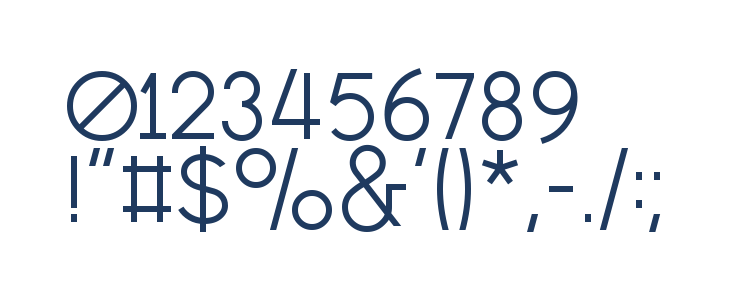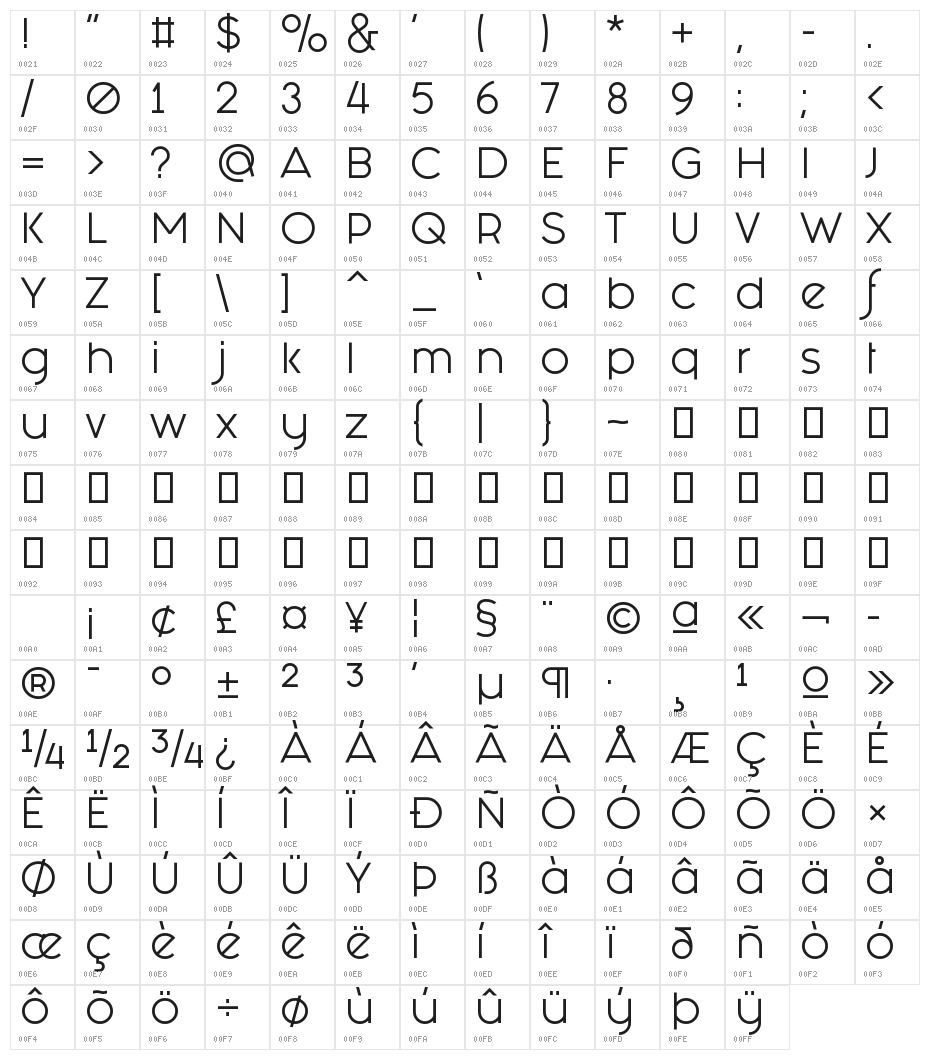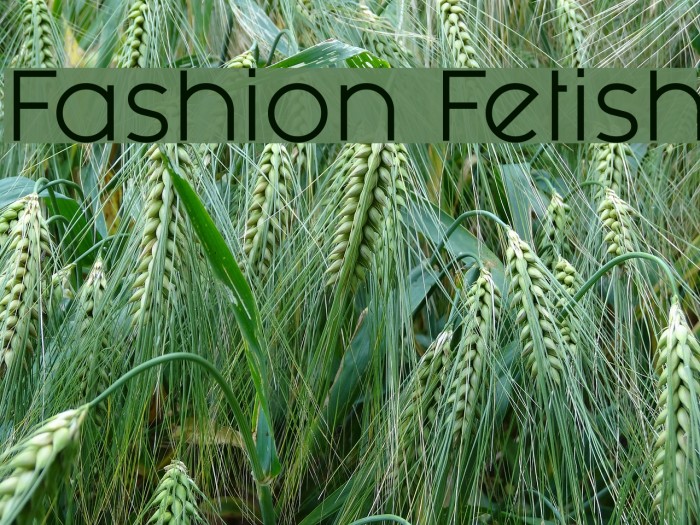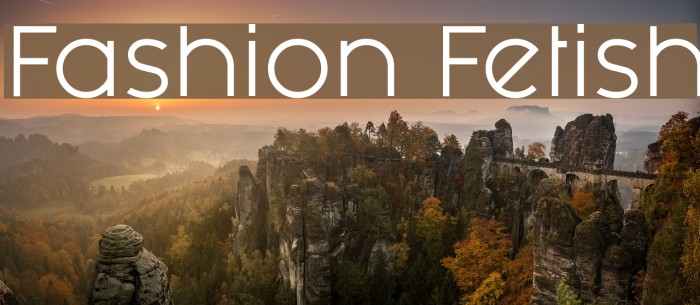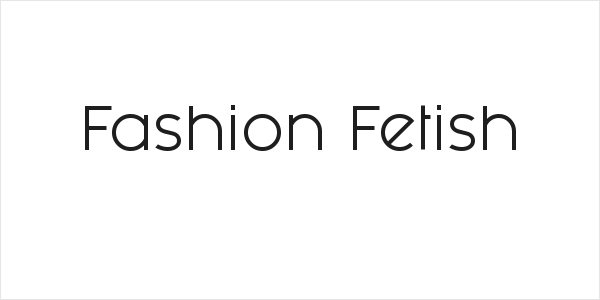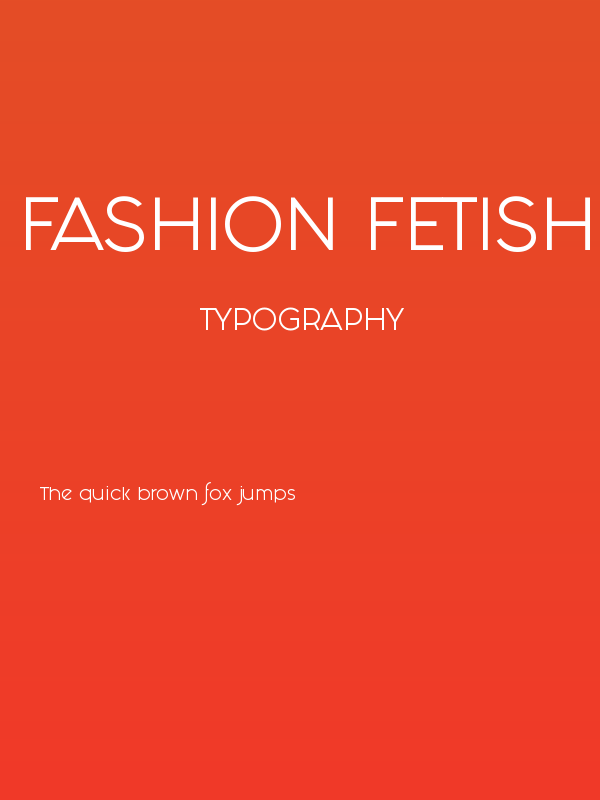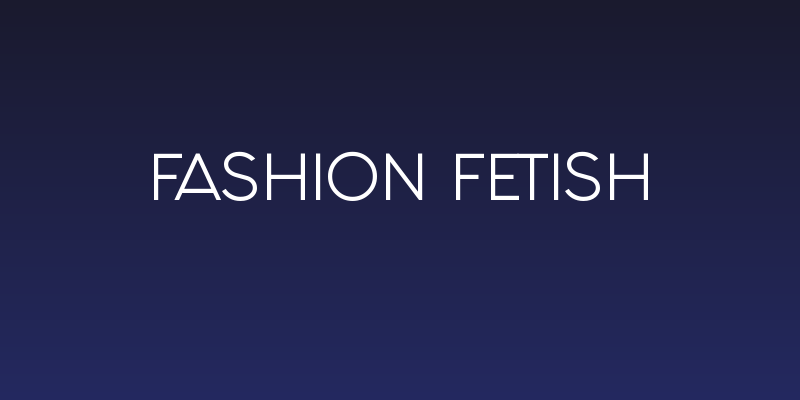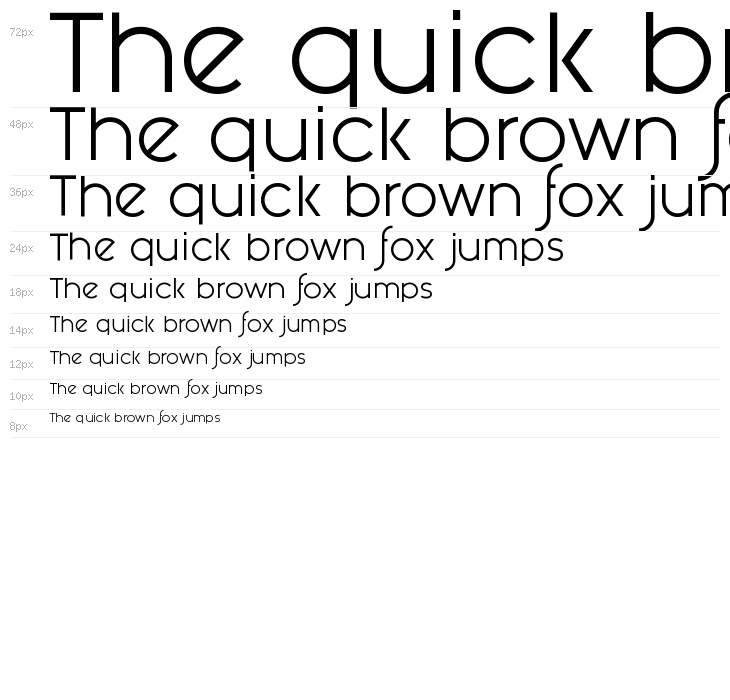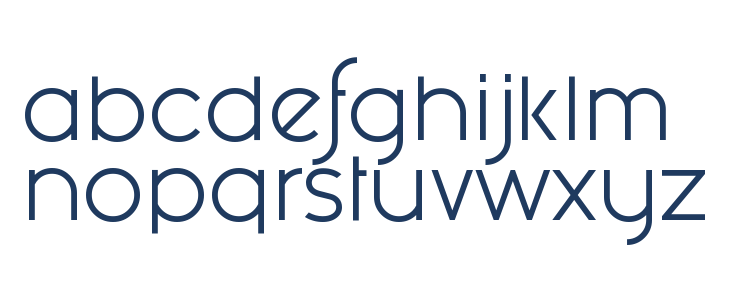
Fashion Fetish Font
Fashion Fetish Description
This font features a clean and modern sans-serif design with a geometric structure. The characters are well-balanced, with uniform stroke widths that provide a harmonious appearance. The uppercase letters are bold and striking, while the lowercase letters maintain a consistent and approachable look. The numerals are clear and easy to read, making them suitable for various applications. Special characters are included, offering versatility for different design needs. The overall style is sleek and contemporary, making it ideal for projects that require a modern aesthetic.